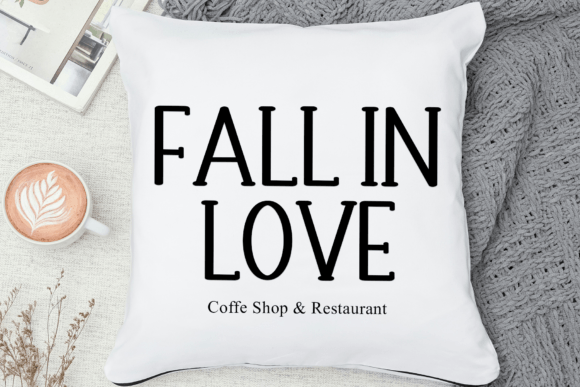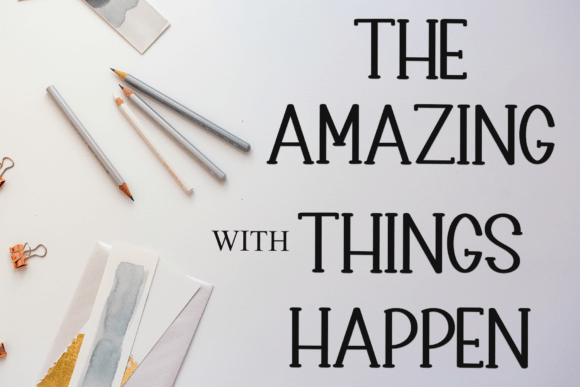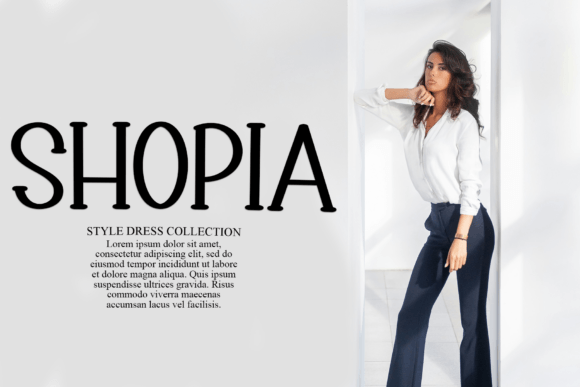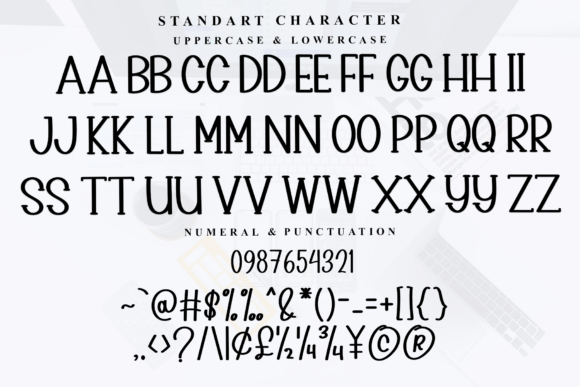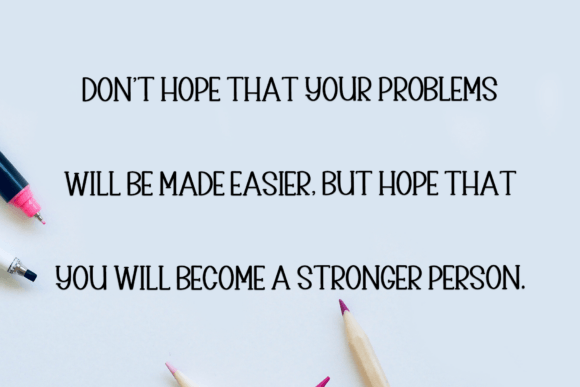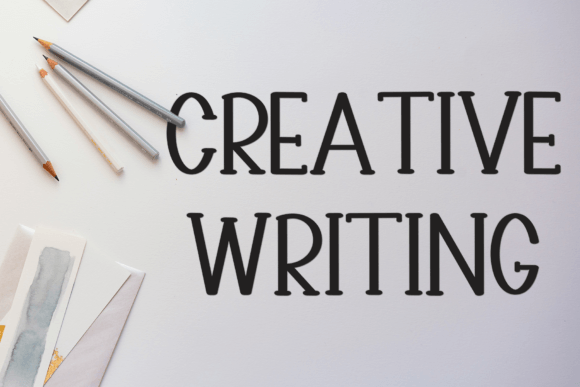
Introduction to Simple Number Font
As designers, we’ve all been there – staring at a blank page, waiting for inspiration to strike. The cursor blinks, and our minds go blank. But what if I told you that the perfect spark can come from a simple yet elegant font like the Simple Number Font? This beautiful, handmade serif display font has the power to elevate your designs and transport your audience to a world of sophistication and elegance.
With its bold, classic letters and unique details, the Simple Number Font is the perfect design resource for any creative project. Whether you’re working on a high-quality magazine spread or a website that requires a touch of warmth, this font is sure to deliver. And the best part? You can download it for free, making it an instant addition to your design arsenal. Let’s dive into the world of Simple Number Font and discover why it’s a valuable asset for any designer.
Key Features of Simple Number Font
- High-quality design: Simple Number Font is a beautifully crafted typeface ideal for creative projects that require a clean and modern aesthetic.
- Transparent background: This font features a transparent background, making it easy to use on any background or design element.
- Perfect for digital design: Simple Number Font is an excellent design resource for digital projects, including websites, apps, and social media graphics.
Honest Review: Simple Number Font
I recently had the chance to work with the Simple Number Font, and I must say it’s been a great addition to my design resource library. ✨ One of the standout features of this font is its high quality and clean design, making it perfect for any creative project that requires a touch of sophistication.
- Transparent background: The font has a transparent background, allowing for seamless integration with any design element.
- High quality: As mentioned earlier, the font is of high quality and features crisp, clean lines.
One of the only limitations I’ve found with the Simple Number Font is that it may not be suitable for projects that require a lot of customization. ⚠️ The font’s design is quite straightforward, and while this is part of its charm, it may limit its versatility in certain situations.
Overall, I’m really impressed with the Simple Number Font. It’s a great addition to any designer’s library, and its high quality and clean design make it perfect for a wide range of creative projects. If you’re looking for a reliable and high-quality font, I’d definitely recommend giving the Simple Number Font a try.
The Simple Number Font is perfect for:
- Creating titles and headings for presentations and documents
- Designing infographics and data visualizations
- Adding a touch of elegance to your website or app